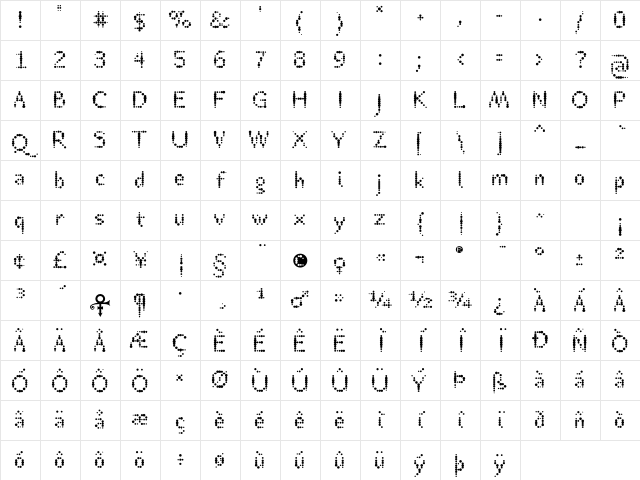
Complete TTRheostatCelsius Medium glyph index. Displaying only characters natively supported by TTRheostatCelsius Medium font.
TTRheostatCelsius is a composed and adaptable typeface that performs quietly and consistently across a wide range of design contexts.